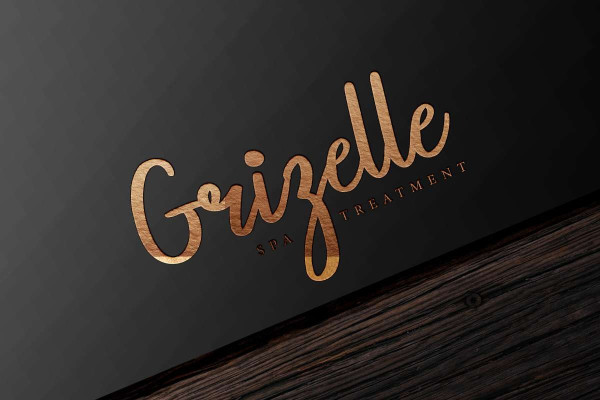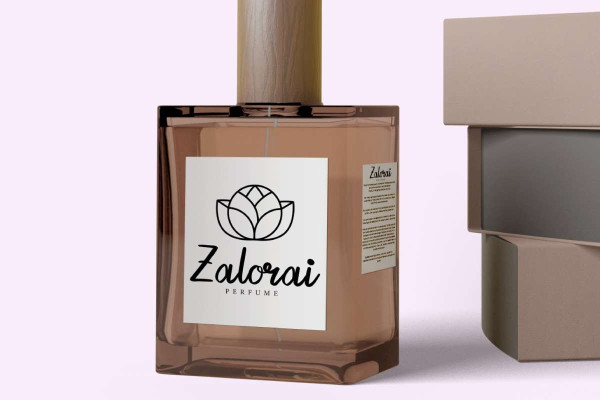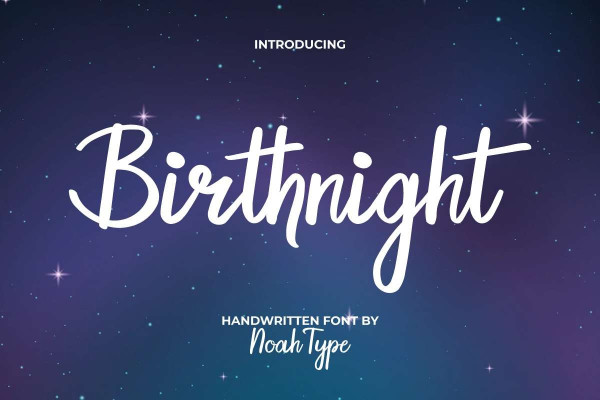
Birthnight Font
Birthnight Font is a simple handwriting font by NoahType. This beautiful font will grab anyone’s attention when added to a design. It will be suitable for any industries, such as café, clothing brand, cosmetic, event or wedding organizer, handicrafts, perfume, printing, publishing, restaurant, salon and spa, writer, and more!
Birthnight Font includes full set of Uppercase and Lowercase Basic Characters, Numerals and Punctuation, Alternate, and Ligature. Get inspired and use this font in your various designs, such as brand logo, brochure, label, mockup design, poster, product packaging, quote, screen printing, stationery, title, website, and more!